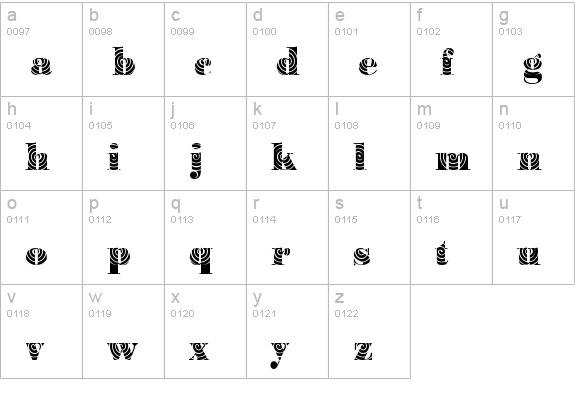
BodoniWinding-Regular is the standard, neutral variant in the BodoniWinding typeface family \xE2\x80\x94 well suited to general body text, paragraphs, and standard typographic work.
BodoniWinding-Regular is a unique and elegant font that combines the classic Bodoni style with a winding, whimsical twist. The delicate curves and intricate details of this font make it stand out for projects that require a touch of sophistication and playfulness. Whether you're designing invitations, logos, or branding materials, BodoniWinding-Regular is sure to make a statement. The best part? BodoniWinding-Regular is available for free download at FontsMarket.com. This means you can easily access this beautiful font for all your creative endeavors without any cost. Don't miss out on adding BodoniWinding-Regular to your font collection today!